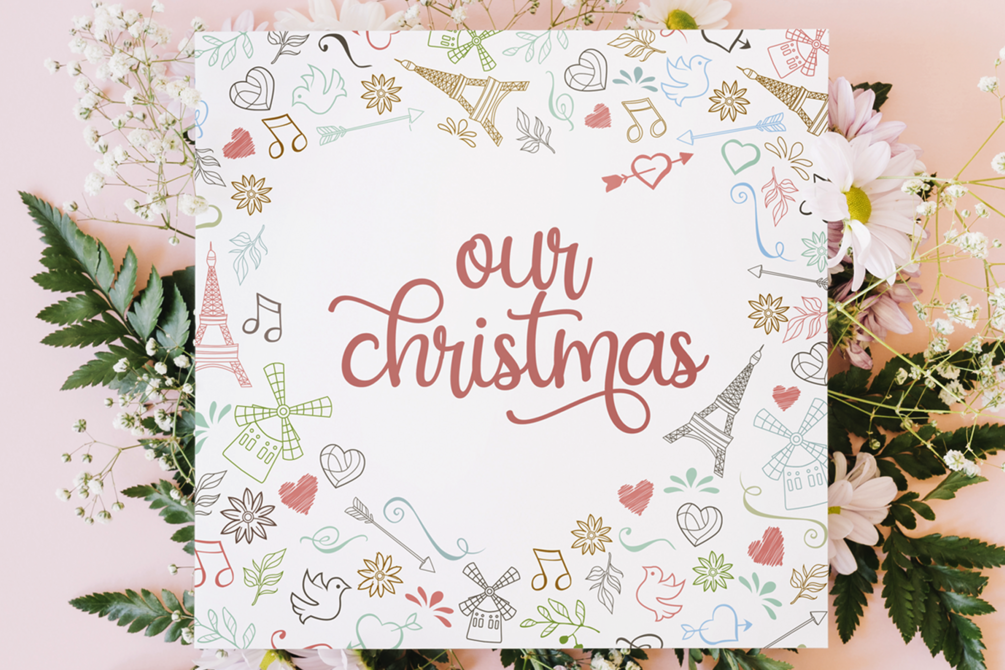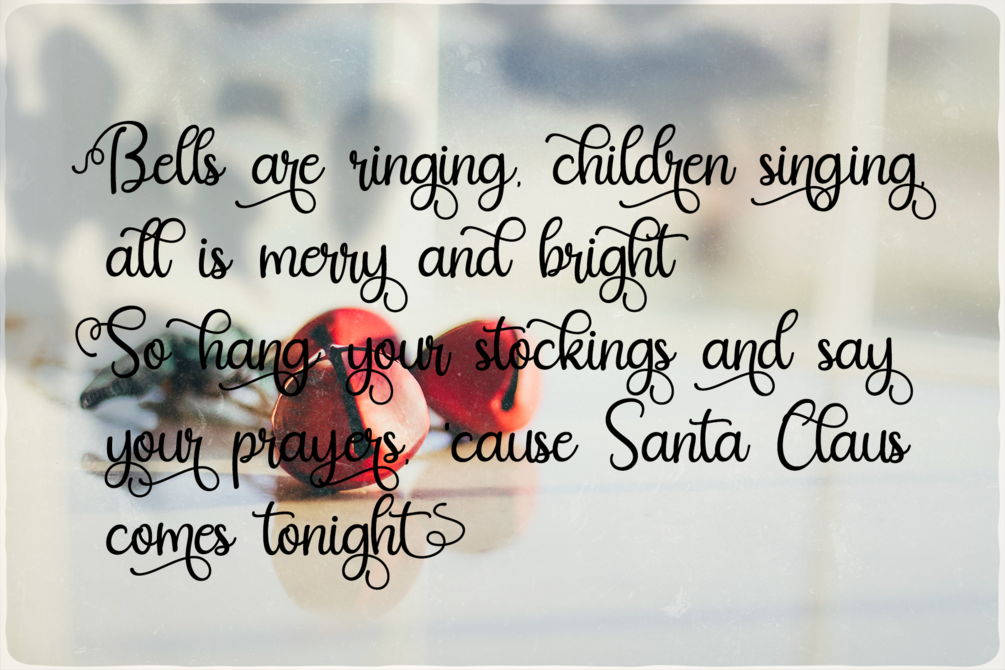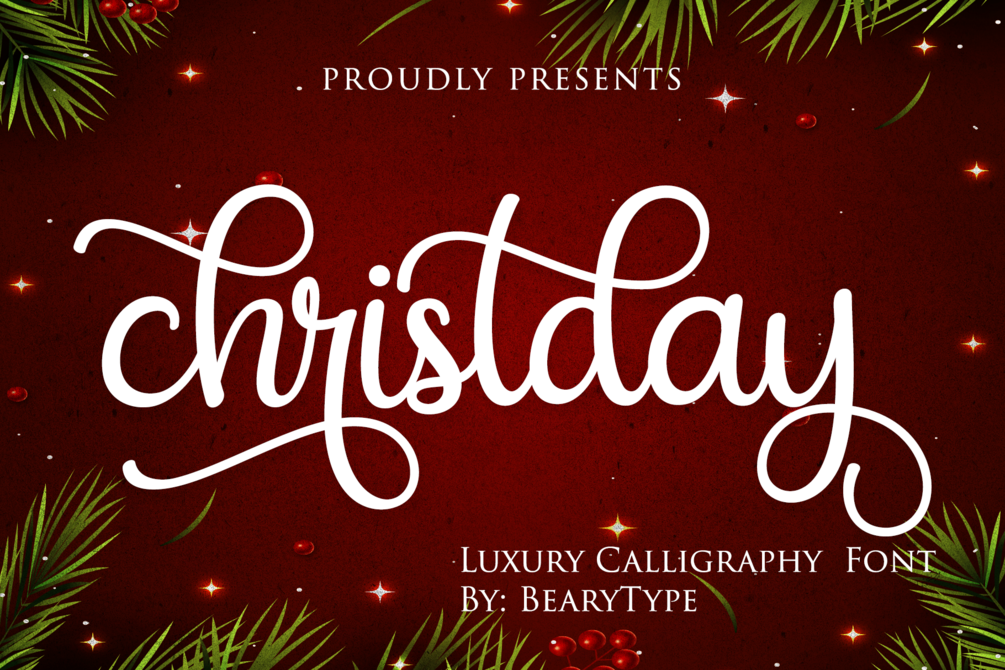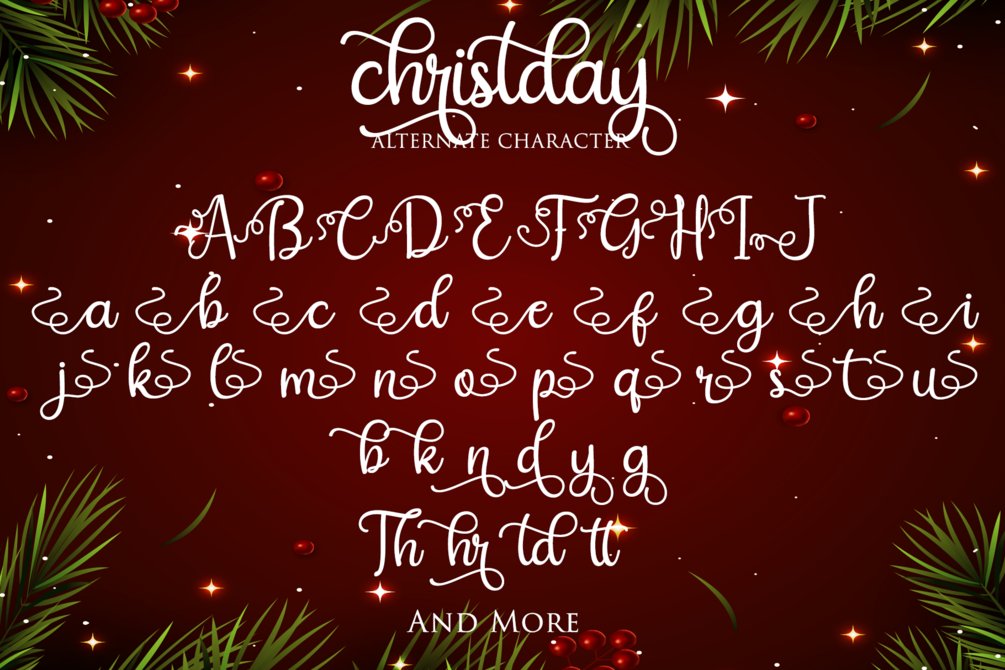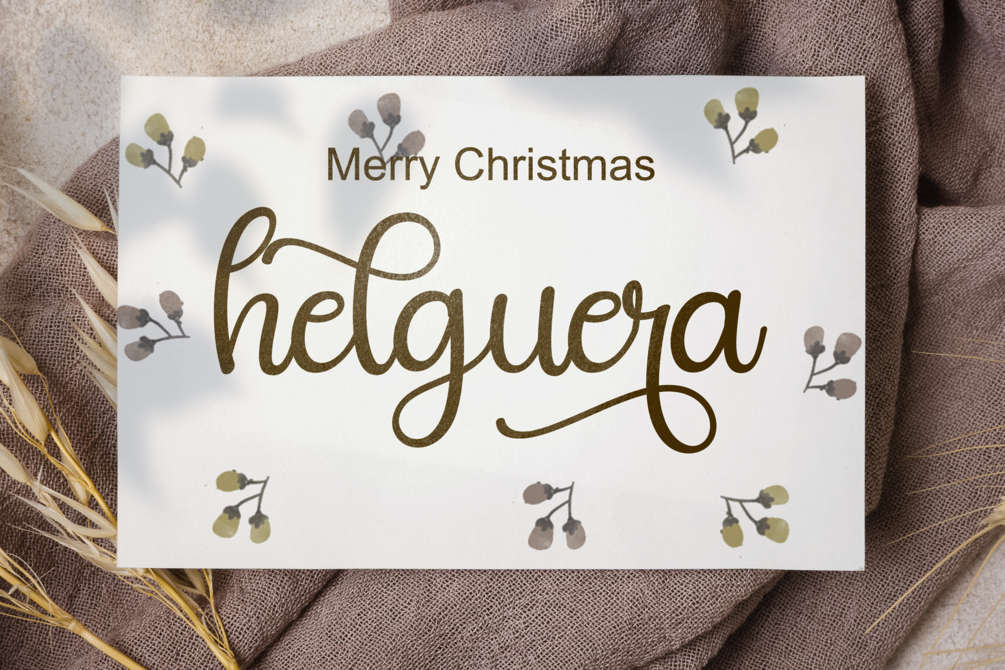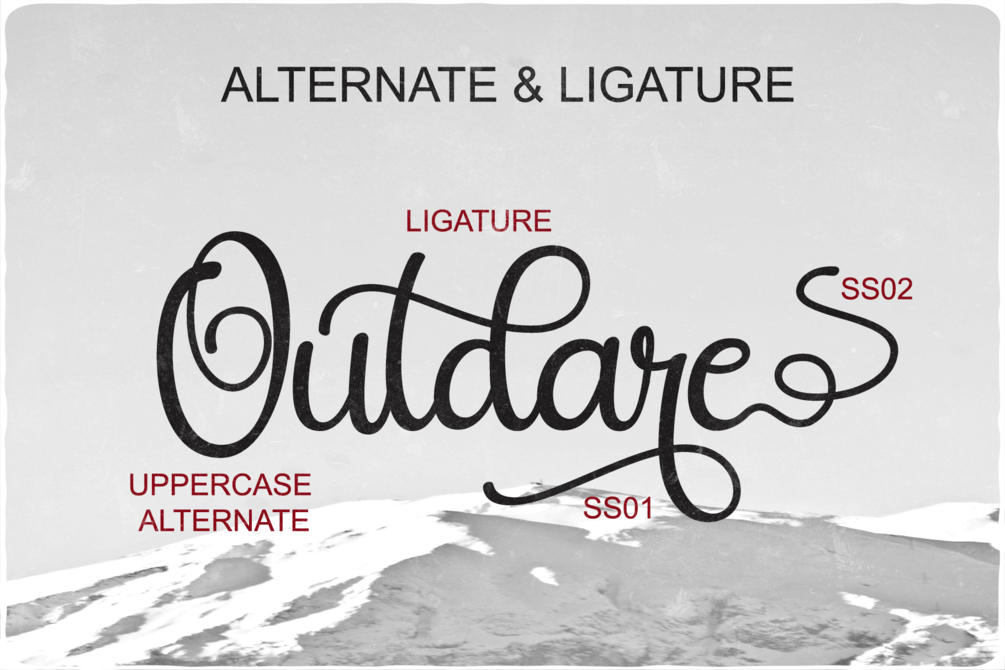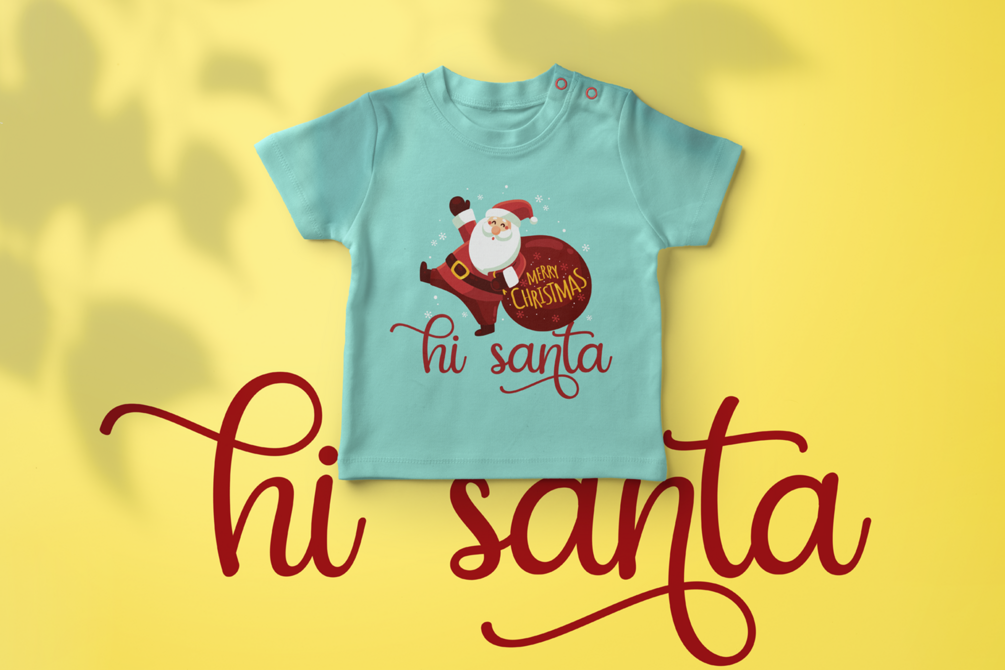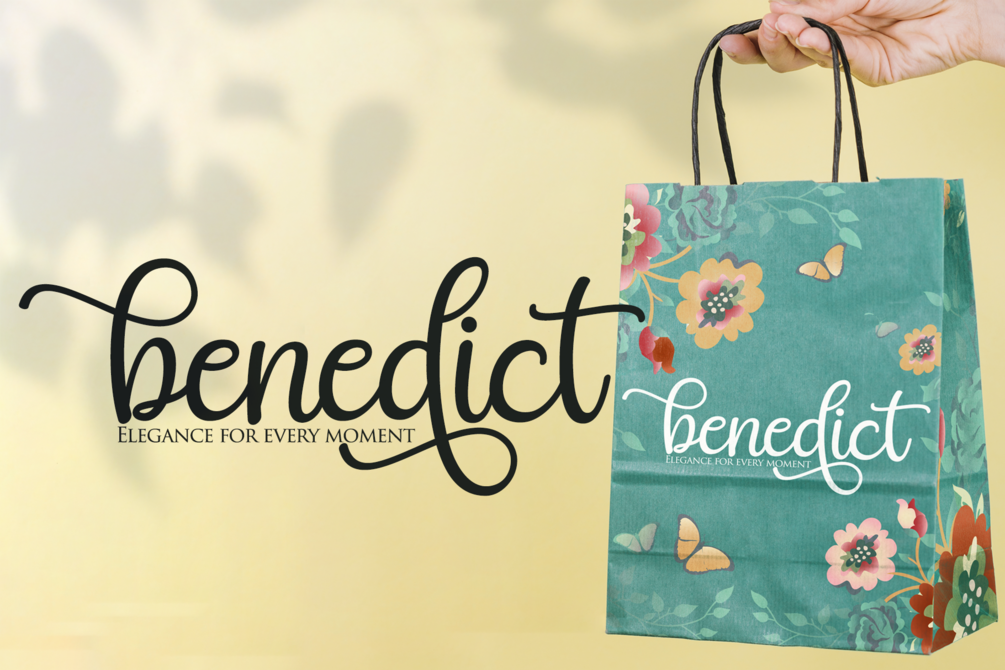
Christday β Amazing Christmas Hand Lettering Font with Natural Flow & Swashes
Christday is an amazing hand lettering script font that looks natural, attractive, and perfectly festive. Every letter is carefully handcrafted with beautiful flow and Christmas magic, featuring 298 glyphs, including 99 alternate characters with swashes and over 60 extended Latin characters for full multilingual support. This font is ideal for Christmas cards, holiday invitations, winter wedding signage, branding, advertising, mugs, posters, packaging, social media quotes, and Cricut/Silhouette projects.
- 99 Alternate Characters + Swashes
- Ligatures
- Multilingual Support (60+ Latin-based languages)